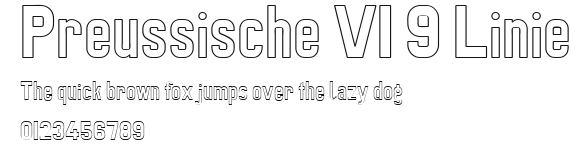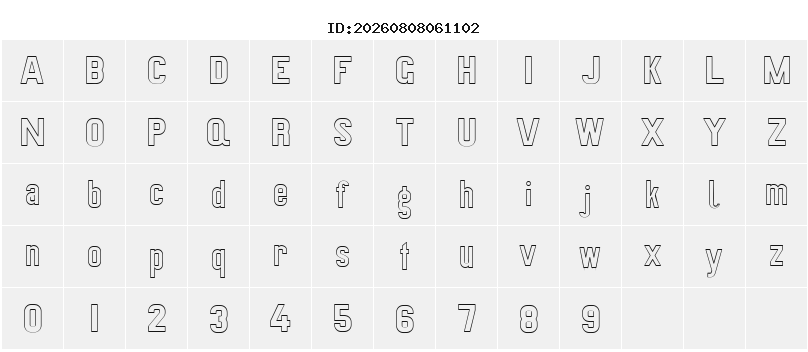
• Font Name: Preussische VI 9 Linie
• Designer: Peter Wiegel
About Preussische VI 9 Linie.ttf
Preussische VI 9 Linie.ttf is a modern, elegant sans-serif font designed for ultimate readability and visual harmony. Perfect for branding, headlines, web design, and print materials.